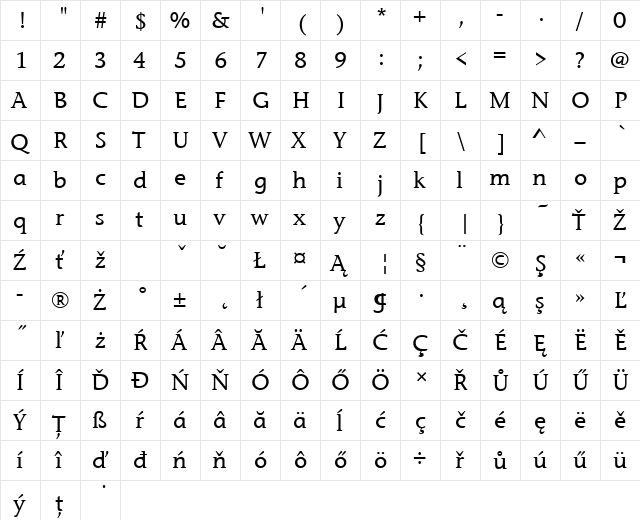
StoneInfItcTEEMed Regular Font Preview
StoneInfItcTEEMed Regular
StoneInfItcTEEMed Regular Font Details
Design Context for StoneInfItcTEEMed Typeface
StoneInfItcTEEMed offers clean, dependable letterforms without strong stylistic allegiance, making it a practical choice for designers who need flexibility.